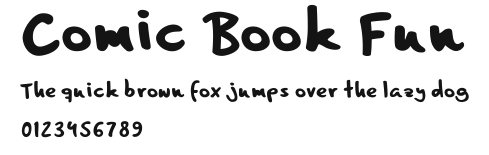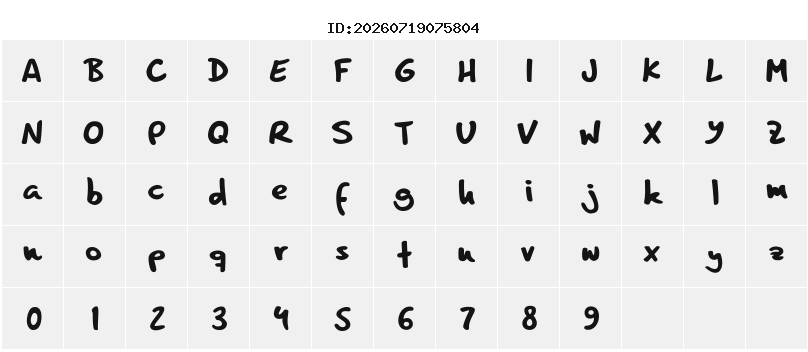
• Font Name: Comic Book Fun
• Designer: Javier Ugarte del Corro
About Comic Book Fun.ttf
Comic Book Fun.ttf is a modern, elegant sans-serif font designed for ultimate readability and visual harmony. Perfect for branding, headlines, web design, and print materials.